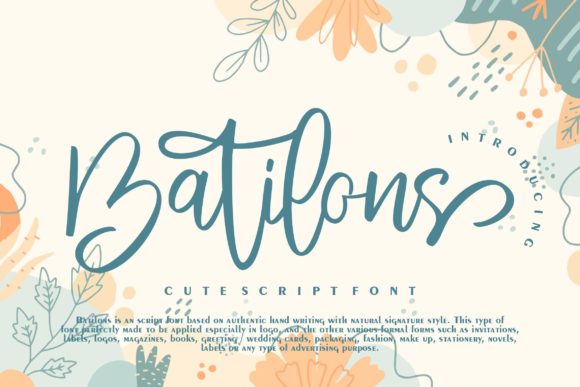
Batilons Script: A Fresh Perspective on Modern Calligraphy
When you are building a brand or designing a piece of stationery, the typeface you choose does more than just display words; it sets a mood. There is a specific feeling we get when we look at a well-crafted script font—it feels personal, immediate, and human. That is exactly the space where Batilons Script operates. It is a premium font that captures the essence of modern calligraphy without looking messy or unrefined. For designers, entrepreneurs, and content creators looking for that specific blend of elegance and approachability, this typeface offers a compelling visual voice.
Visual Character and Personality
At first glance, Batilons Script is defined by its flowing, rhythmic structure. It is not a stiff, formal calligraphy; rather, it embraces the natural inconsistencies of a hand-lettered style. You will notice the smooth curves and the way the letters connect, creating a seamless visual line that guides the eye across the page. It strikes a balance that is difficult to find—it is decorative enough to be interesting, but clear enough to remain functional.
The visual weight of the font is generally consistent, which helps in maintaining legibility even when used at varying sizes. Unlike some handwritten fonts that can become illegible when scaled down, Batilons retains its form. The swashes and tails are tasteful, adding flair without overwhelming the core structure of the letters. This makes it a versatile script font that feels grounded in tradition but designed for contemporary aesthetics.
Practical Applications: From Branding to Personal Projects
The true test of any typeface is how it performs in the real world. Batilons Script shines in scenarios where you need to inject personality and warmth into a design. It is an excellent choice for logo design, particularly for brands that want to project an image of authenticity, craftsmanship, or luxury. Think of a boutique bakery, a wedding photographer, or a high-end florist. The font immediately communicates a level of care and attention to detail.
Editorial and Print Design
In editorial design, such as magazine headers or pull quotes, this font can break up the monotony of standard serif or sans serif blocks of text. It acts as a visual highlight, drawing the reader's attention to specific phrases. Similarly, in packaging design, the handwritten quality of Batilons helps products feel more artisanal and less mass-produced. It adds a tactile quality to the visual experience, which is crucial for consumer goods.
Digital and Social Media
For web design and social media graphics, the font is a powerful tool for creating hierarchy. While it should rarely be used for body copy, using it for headlines or call-to-action buttons on a landing page can significantly increase engagement. On platforms like Instagram or Pinterest, where visual impact is everything, Batilons Script helps graphics stand out in a crowded feed. It is a creative font that translates well to digital screens, provided the background is clean.
Invitations and Personal Touches
Of course, we cannot overlook its roots in stationery. For greeting cards, wedding invitations, and event signage, this font is a natural fit. It mimics the look of expensive custom calligraphy but offers the consistency and scalability of a digital design asset. If you are a crafter or a hobbyist selling goods on platforms like Etsy, using a professional font like this elevates your product from homemade to professional.
Strategic Implementation and Font Pairing
Choosing the right font is only half the battle; knowing how to use it is where strategy comes in. Because Batilons Script has a strong personality, it requires careful handling to ensure it enhances rather than clashes with other elements.
Creating Visual Hierarchy
Use Batilons for your primary focal points. In a poster, this might be the headline. On a business card, it could be the owner's name or the tagline. Because it is a display font, it demands attention. By pairing it with a clean, neutral typeface for secondary information, you create a clear visual hierarchy. This guides the viewer's eye naturally from the most important information to the supporting details.
The Art of the Pairing
One of the most common mistakes with script fonts is pairing them with another decorative style. To let Batilons breathe, pair it with something simple. A geometric sans serif font works beautifully to provide a modern contrast, while a classic serif font can create a more traditional, timeless aesthetic. For example, if you are designing a menu, use Batilons for the section headers and a legible sans serif for the dish descriptions and prices. This ensures the design looks polished rather than chaotic.